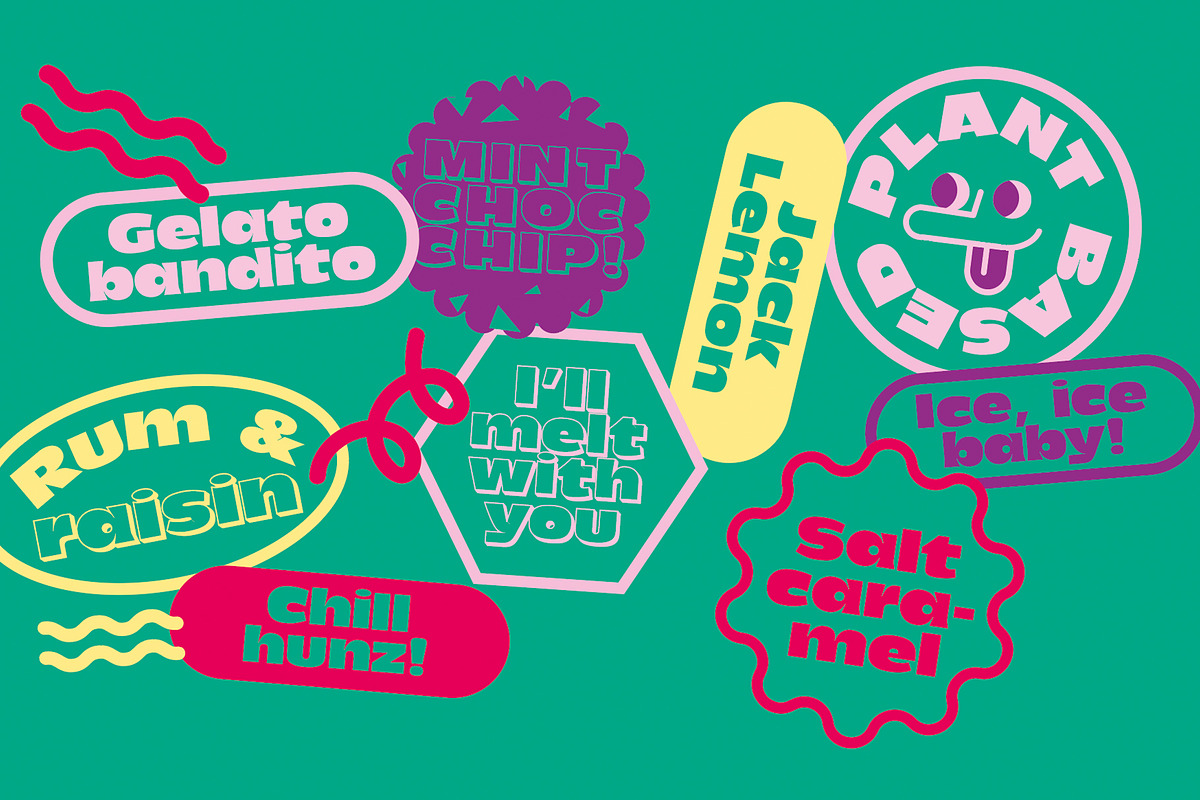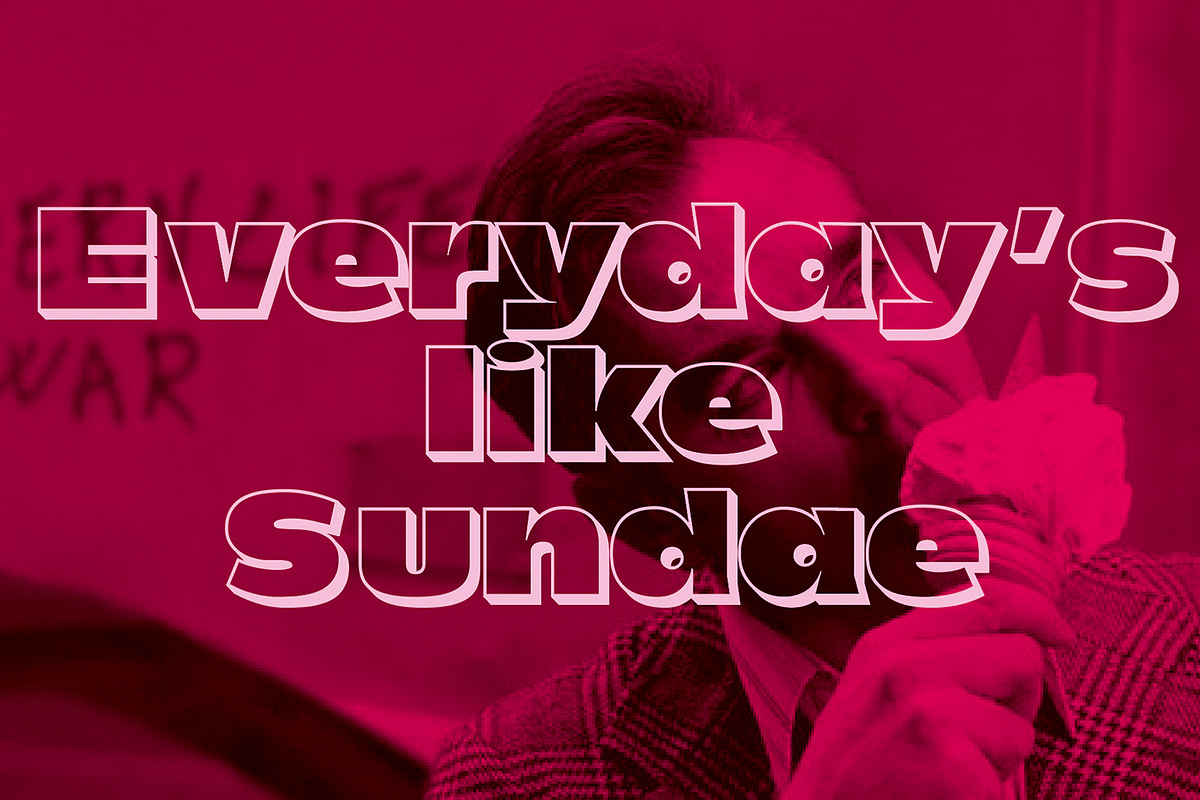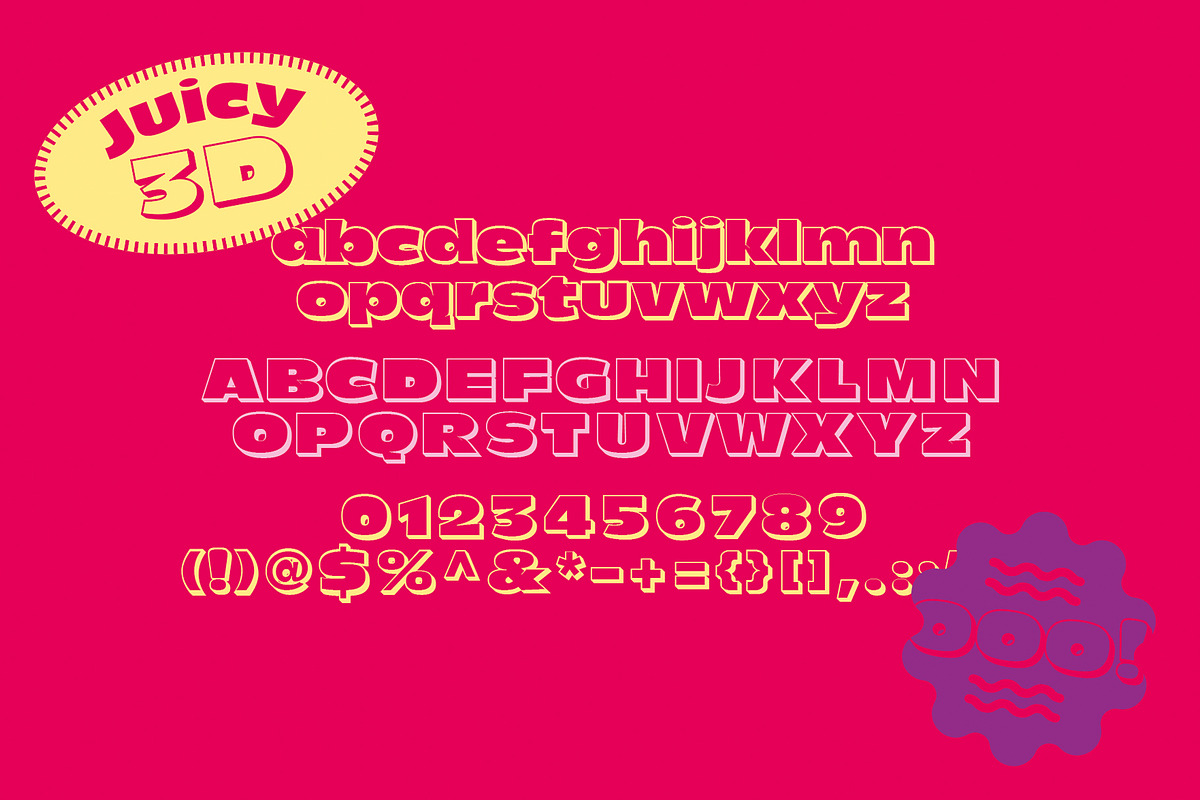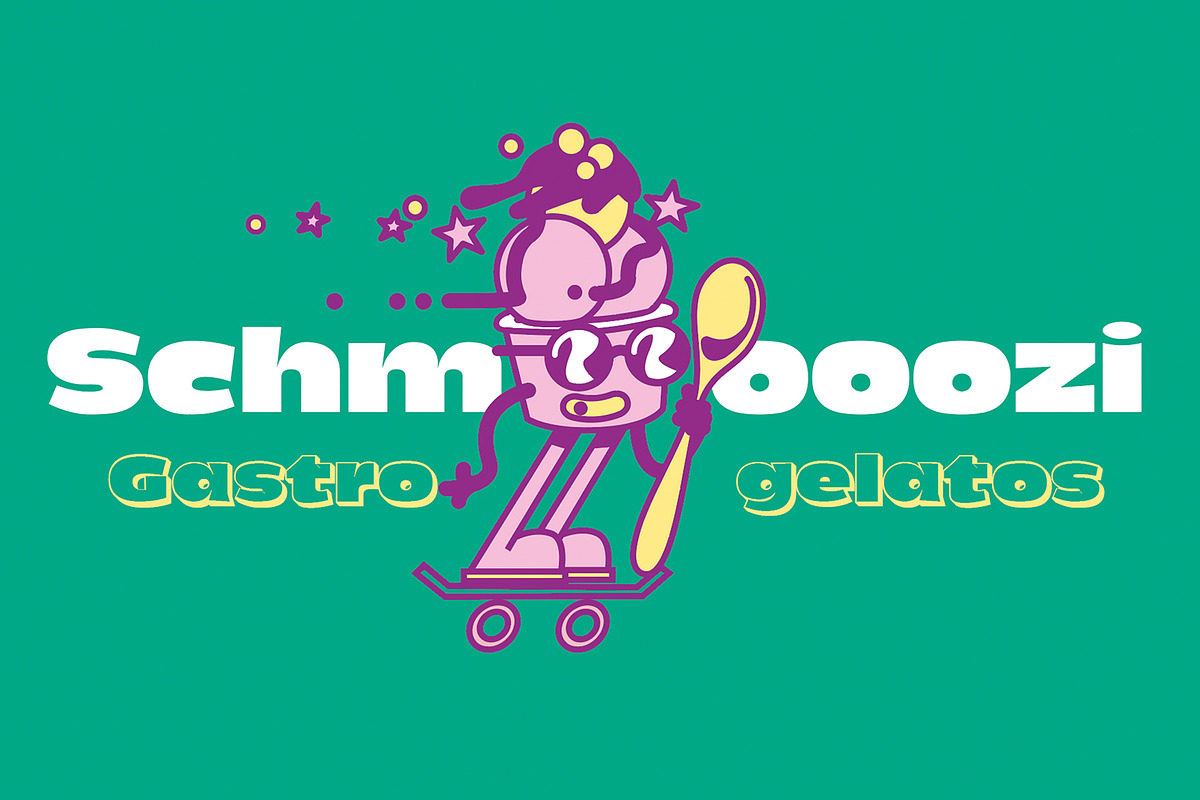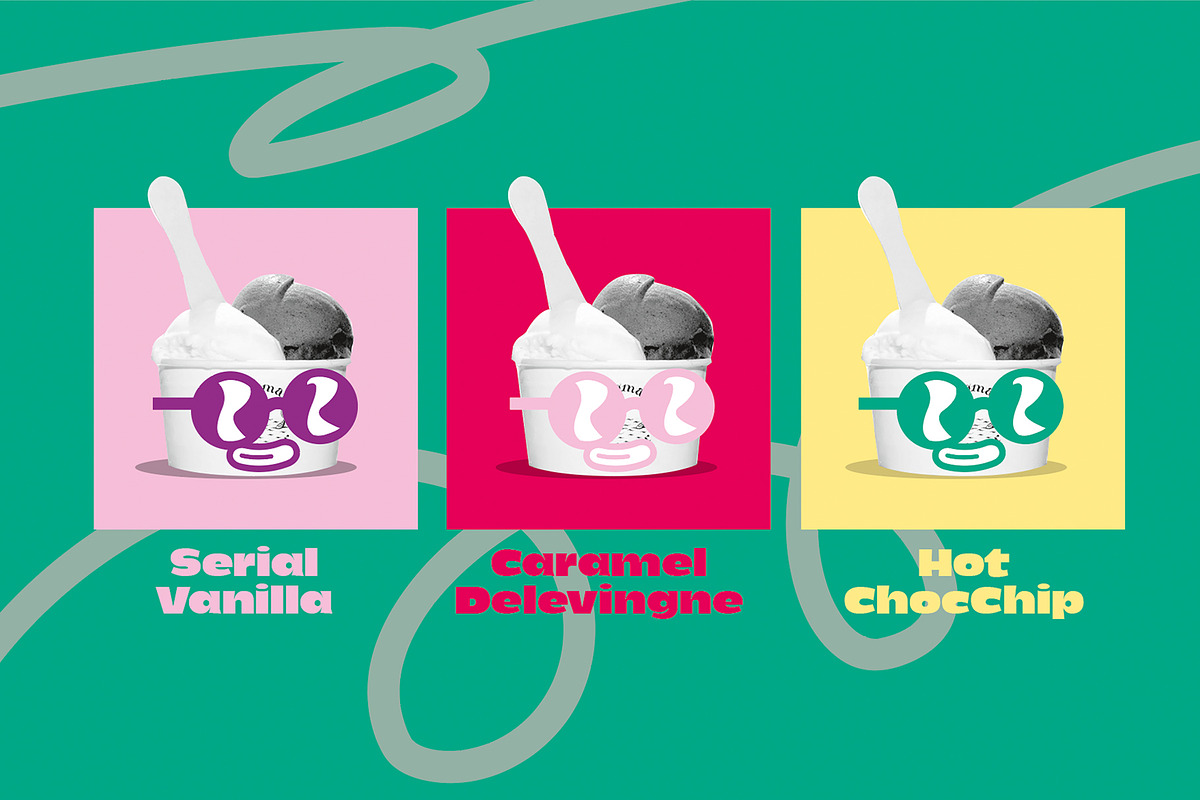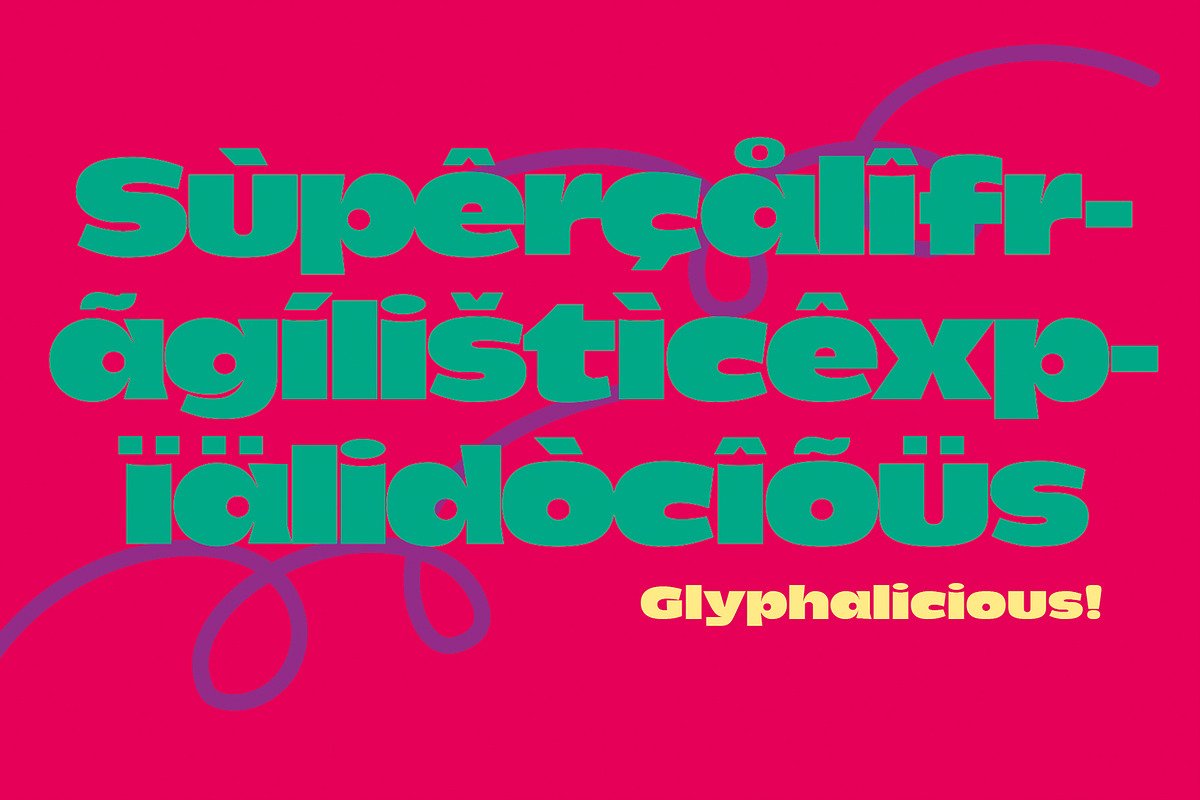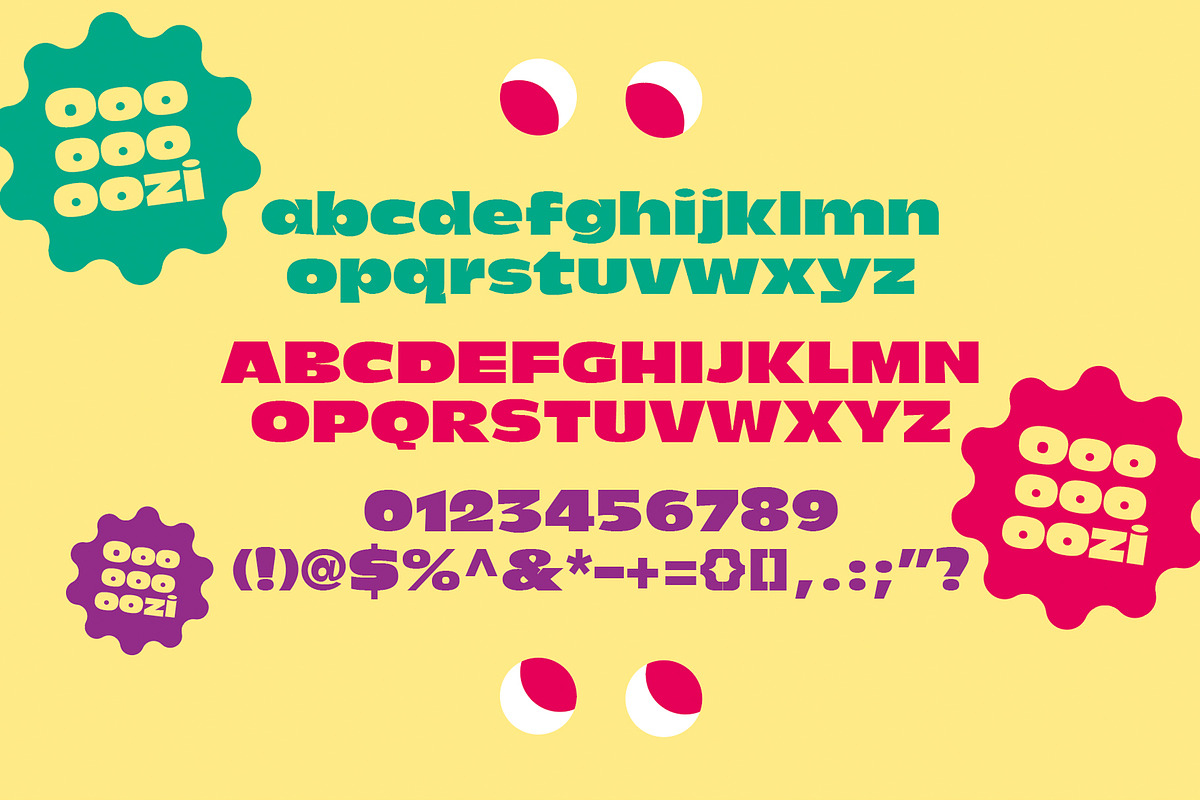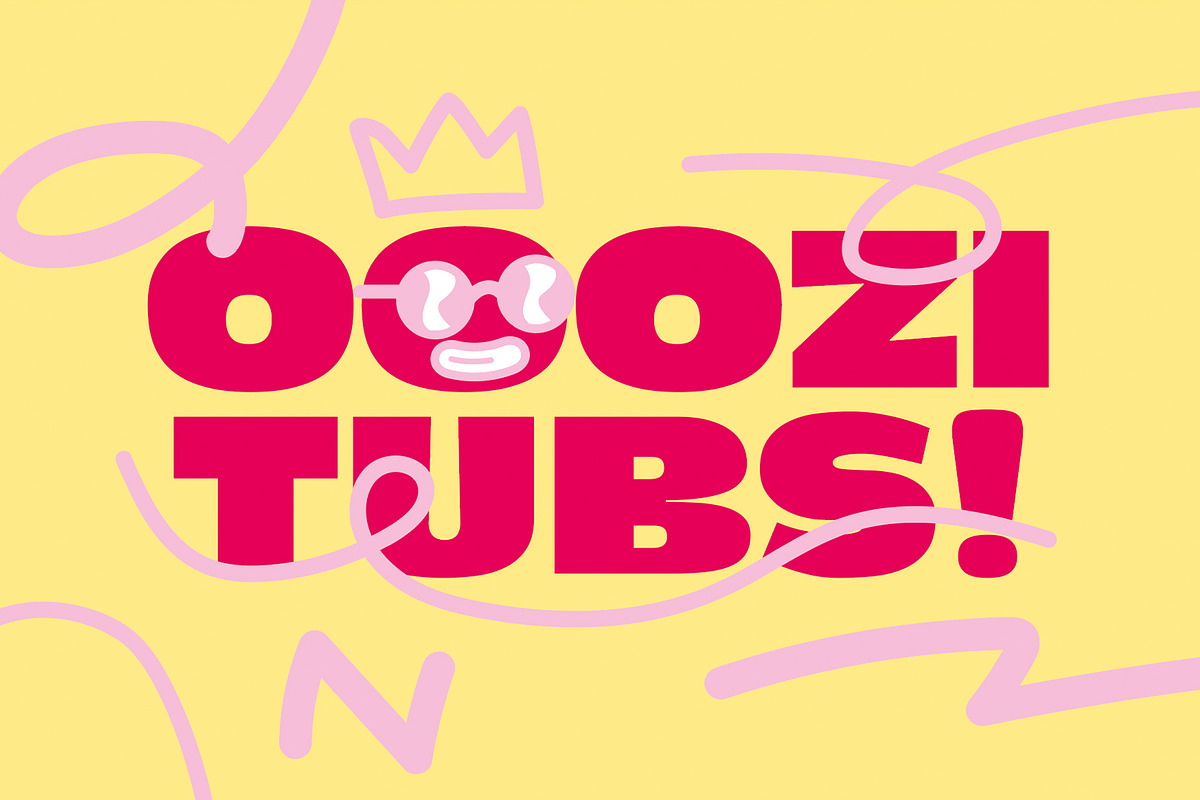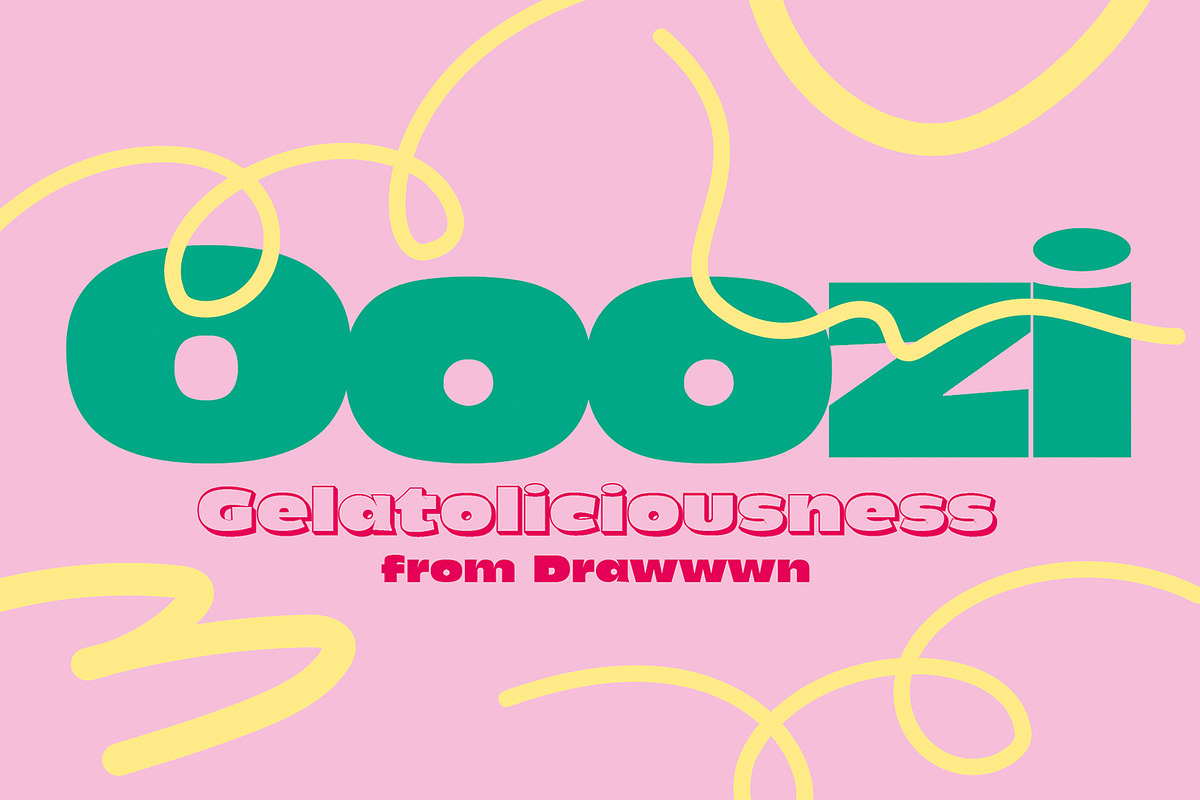
Ooozi | Big & bold font
Ooozi is a super fun bold new sans serif font with a 3d version. Get schmooozin with it's heavy curves and bumpy lines. Perfect for your new branding project, festival poster or social post, it ooozes class!